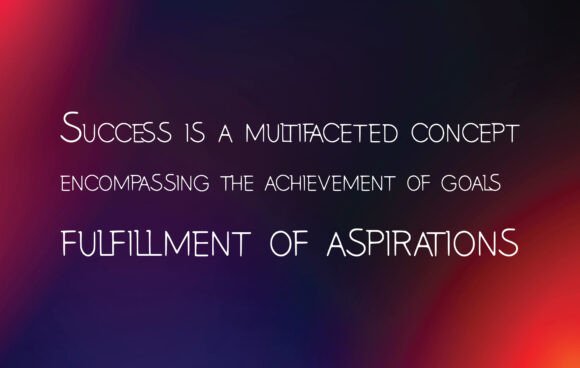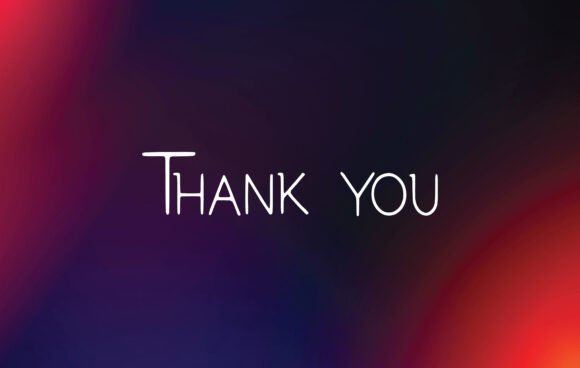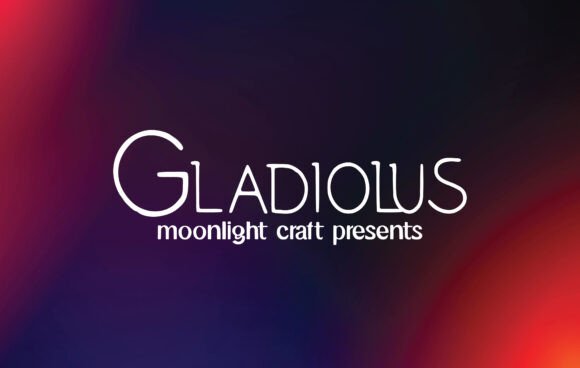
Introducing Gladiolus Font: Elevate Your Creative Projects with Style and Versatility
In the world of typography, finding the perfect font that combines style, readability, and versatility can be a daunting task. However, if you’re on the hunt for a typeface that can elevate your creative projects, look no further than the Gladiolus Font. This beautifully crafted font is designed to become a staple in your collection, offering a unique blend of elegance and adaptability that suits a wide range of applications.
Aesthetic Appeal and Readability
Gladiolus Font boasts an aesthetic appeal that is hard to ignore. Its design strikes the perfect balance between modernity and classic elegance, making it an excellent choice for projects where you want to make a statement. But what truly sets it apart is its exceptional readability. Whether you’re using it for titles or body text, this font ensures that your message is conveyed clearly and effectively. This dual capability makes Gladiolus Font incredibly versatile, allowing you to use it across various mediums without compromising on style or legibility.
The true test of a font’s versatility lies in its application. Gladiolus Font shines in a multitude of creative projects, making it an invaluable asset for designers and crafters. Here are just a few ways you can use this fantastic font:
- Magazine Headlines: Create eye-catching titles that draw readers in with Gladiolus Font’s distinctive style.
- T-Shirts and Merchandise: Design custom apparel and merchandise that stands out from the crowd.
- Social Media Posts: Elevate your online presence with stylish and readable text that engages your audience.
- Branding Materials: Establish a strong brand identity with a font that communicates your message effectively.
- Wedding Invitations: Add a touch of elegance to your wedding invitations and save-the-date cards.
- Greeting Cards: Create beautiful and heartfelt greeting cards for any occasion.
Why Choose Gladiolus Font?
With so many fonts available, why should Gladiolus Font be your go-to choice? The answer lies in its unique combination of style, versatility, and readability. Here are a few reasons why designers and crafters are falling in love with this font:
- Unique Style: Gladiolus Font offers a distinctive look that can help your projects stand out.
- High Readability: Its clear and clean design ensures that your text is easy to read, making it perfect for both headings and body text.
- Wide Applicability: From digital media to print, Gladiolus Font adapts seamlessly to various platforms and materials.
Gladiolus Font is more than just a typeface; it’s a creative tool that can elevate your projects to new heights. Its perfect blend of style, versatility, and readability makes it an essential asset for designers and crafters looking to make an impact. Whether you’re working on a professional project or a personal craft, Gladiolus Font is sure to become your new favorite. So why wait? Explore the possibilities with Gladiolus Font today and discover how it can transform your creative endeavors.